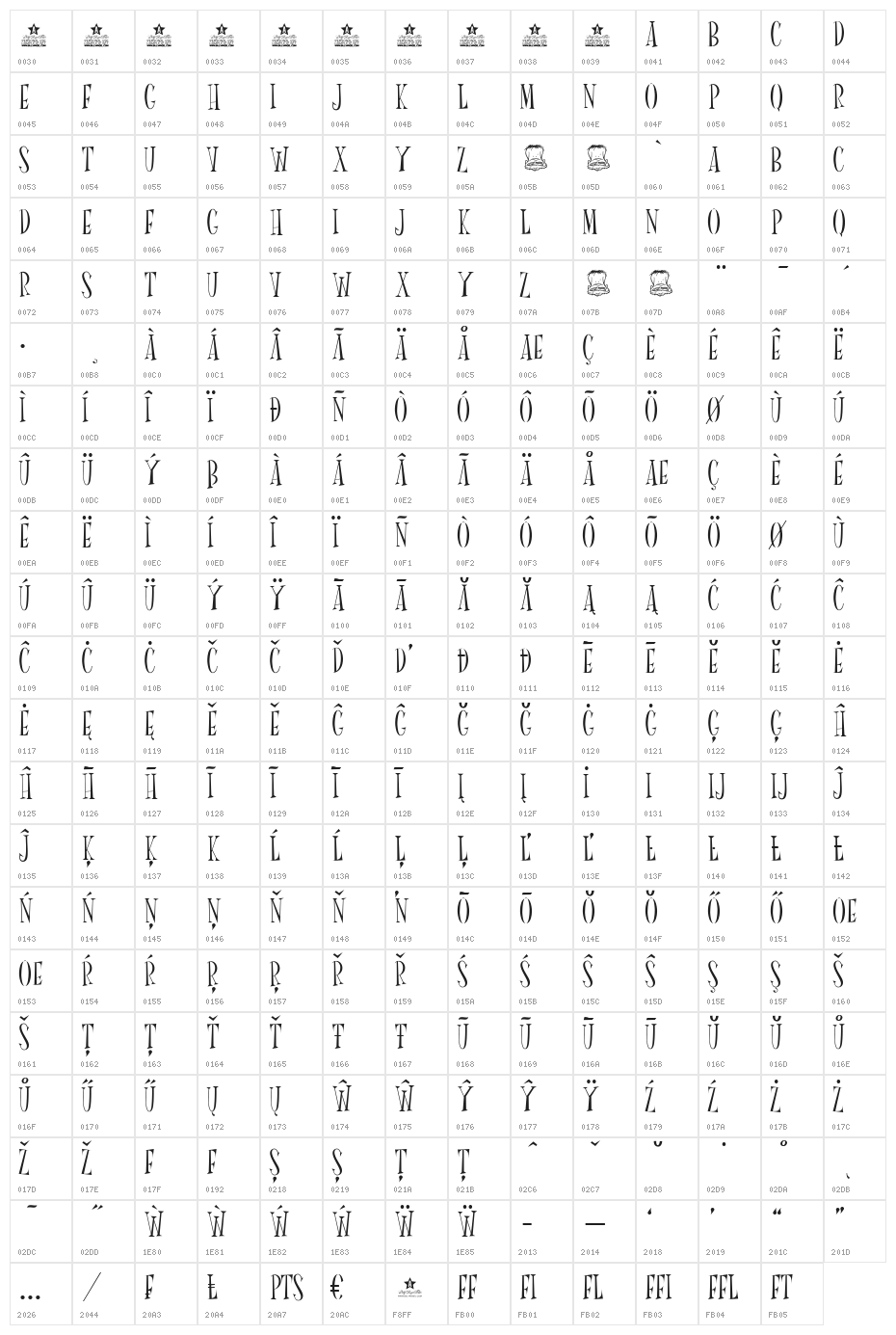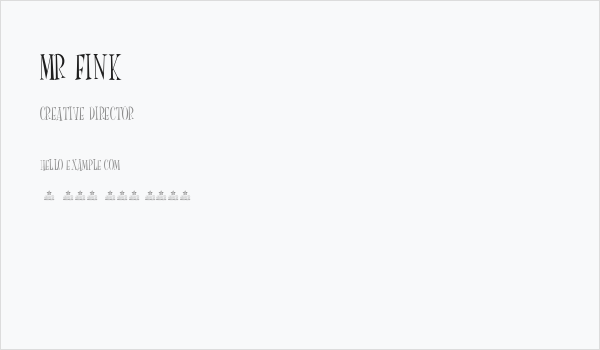
Mr Fink Font
Mr Fink Description
This font features a distinctive, elongated style with sharp, angular serifs that give it a dramatic and eye-catching appearance. The characters are tall and narrow, with a slight curvature that adds a touch of elegance. The uppercase letters are particularly striking, with exaggerated vertical strokes and pointed serifs that create a sense of movement and flair. The lowercase letters maintain the same stylistic elements, ensuring consistency throughout the typeface. This font's unique design makes it ideal for projects that require a bold and artistic touch.
| Proposed Projects | Ideal for posters, headlines, branding, and any project requiring a bold, artistic flair. |